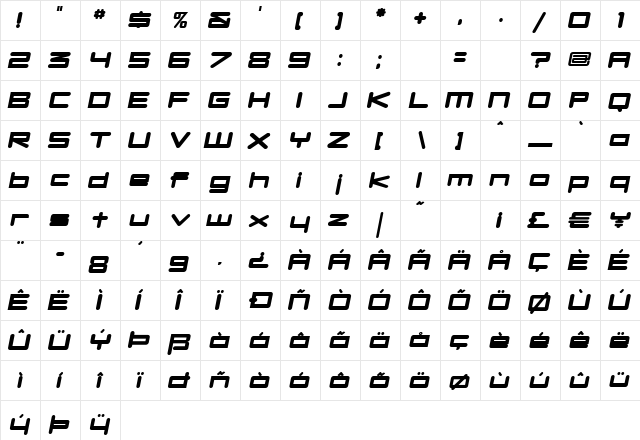
DBXLNightfever UltraWideItalic Font Preview
DBXLNightfever UltraWideItalic
Design Context for DBXLNightfever Typeface
DBXLNightfever offers clean, dependable letterforms without strong stylistic allegiance, making it a practical choice for designers who need flexibility. The dynamic lean of this cut emphasises speed and emphasis in any layout.